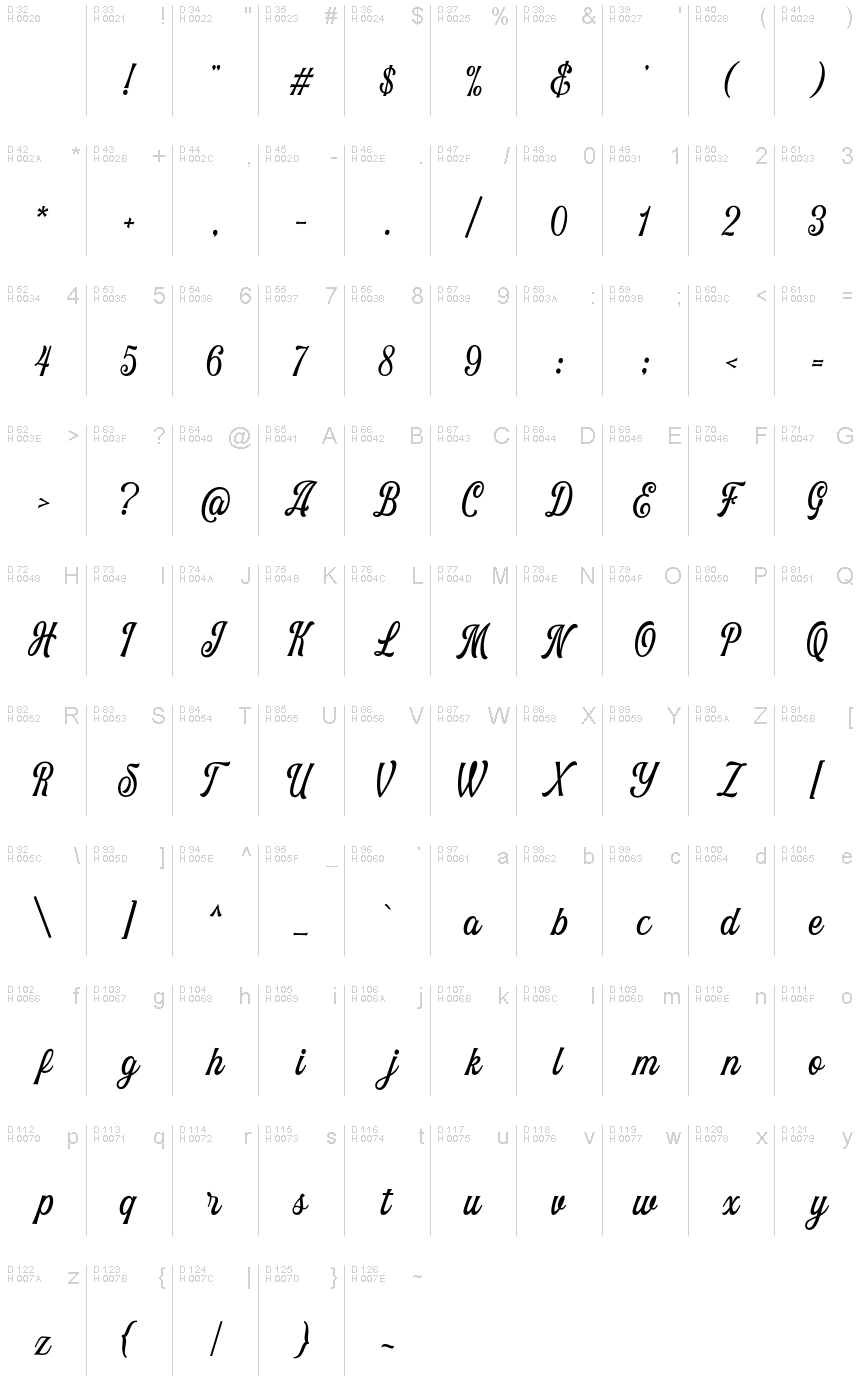
TheGarlandDemo-Script
The Garland Script font by Letterhend Studio is a free font with a cursive, flowing style made possible through connected strokes and smooth curves. It presents impressive decorations that give it a classic retro appearance with sophisticated elegance, typical of calligraphy fonts.